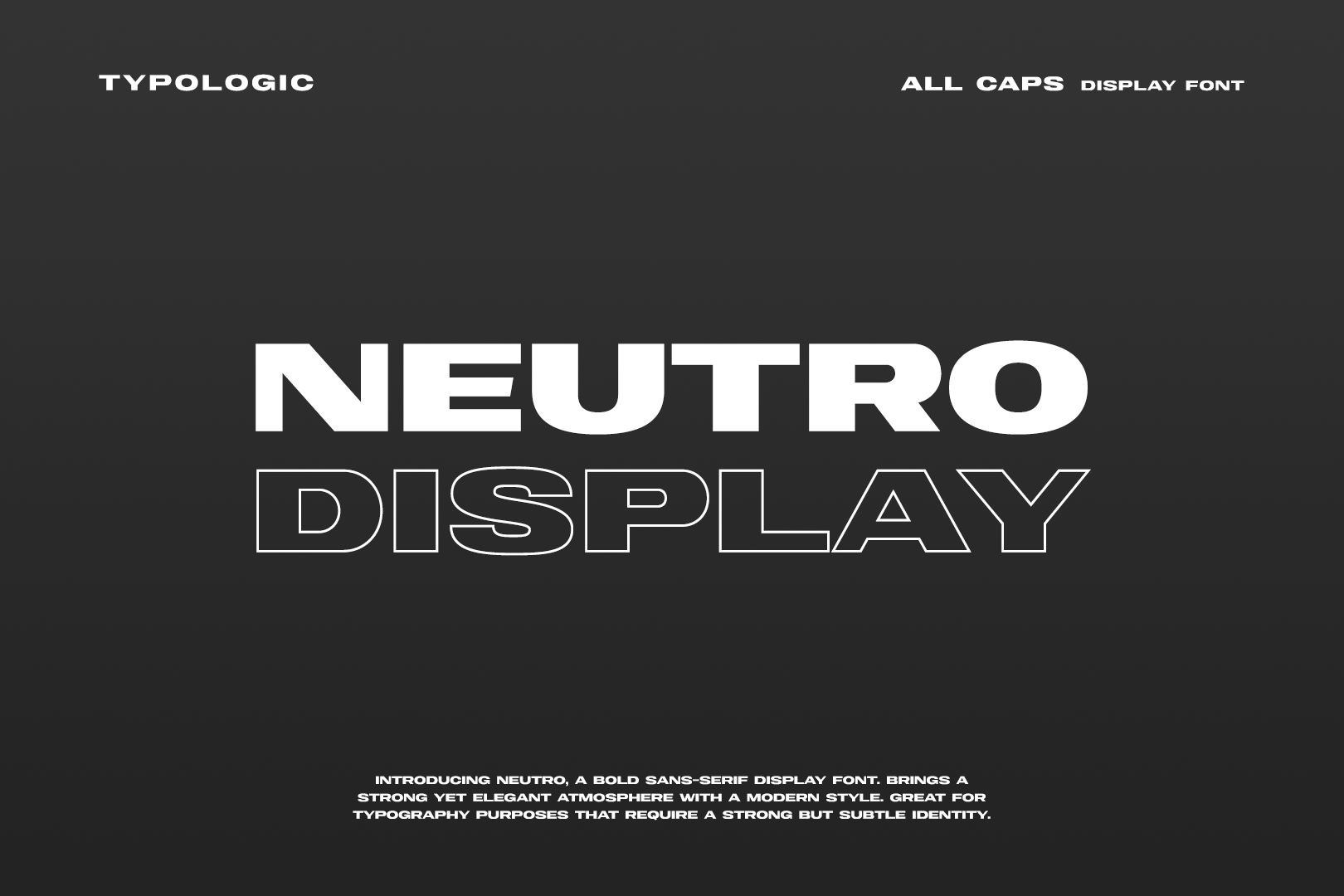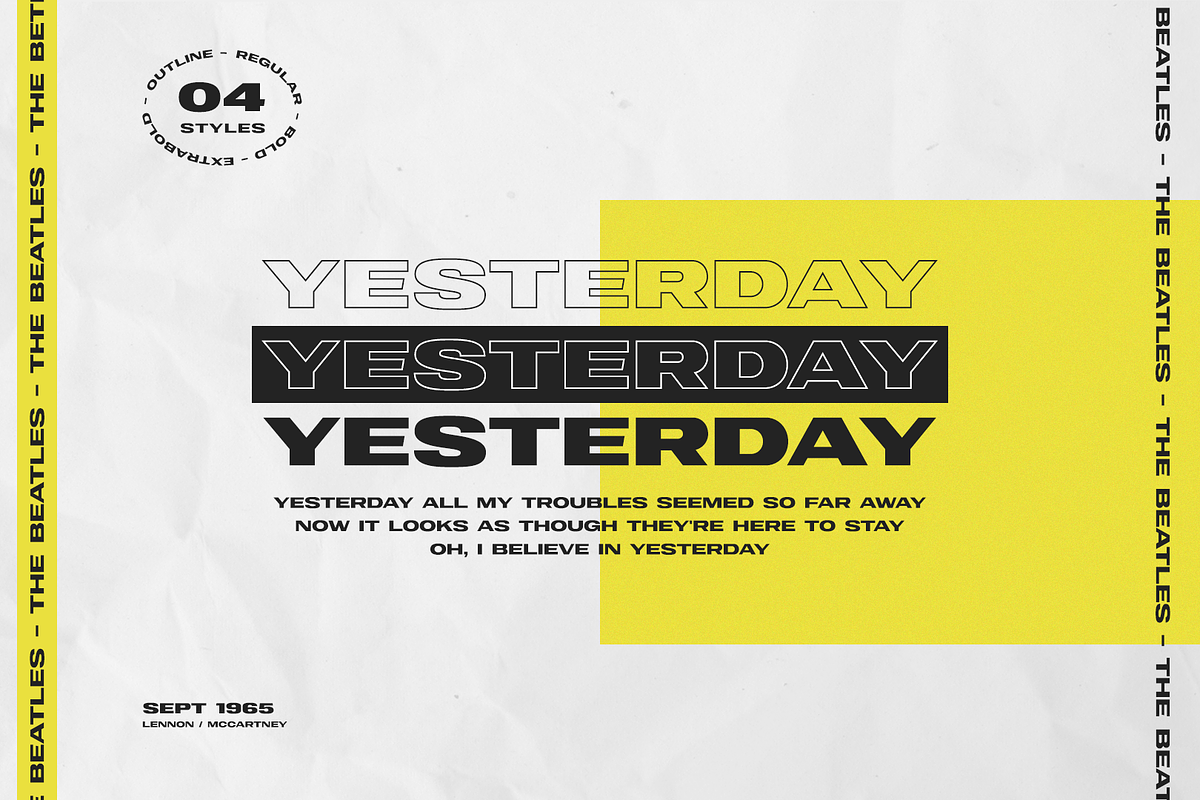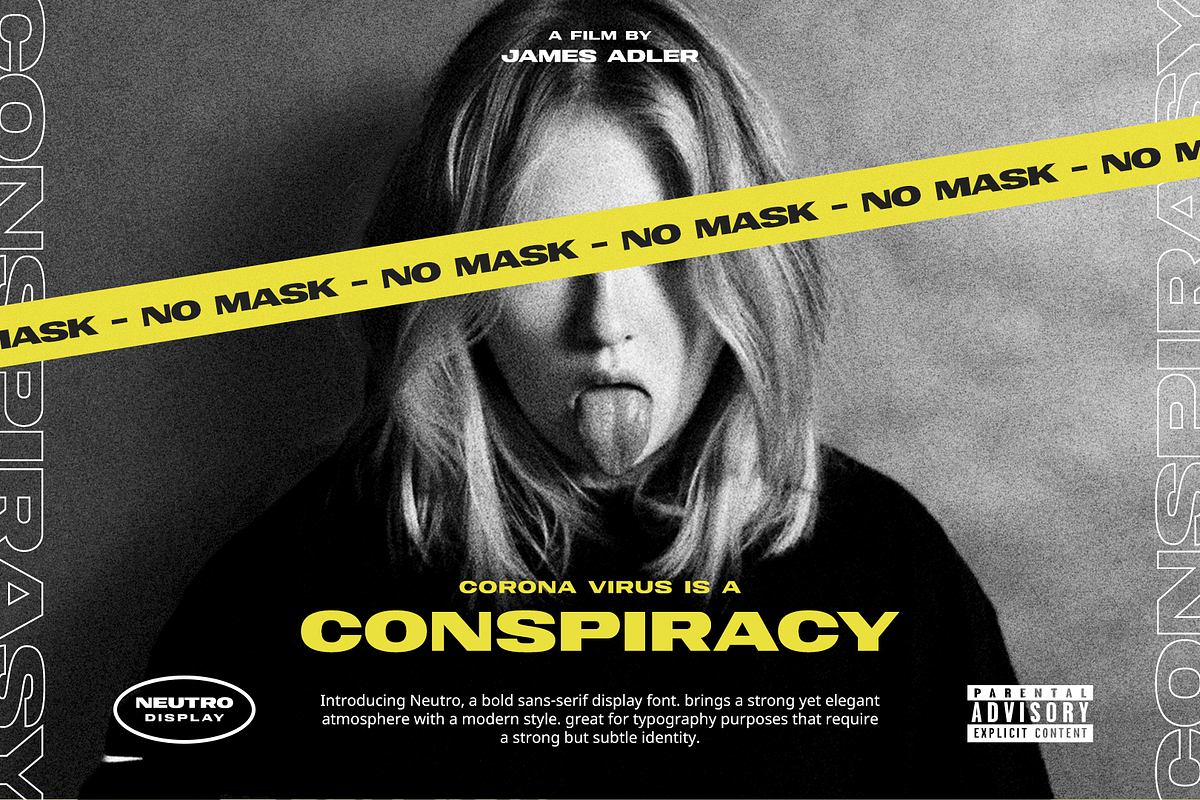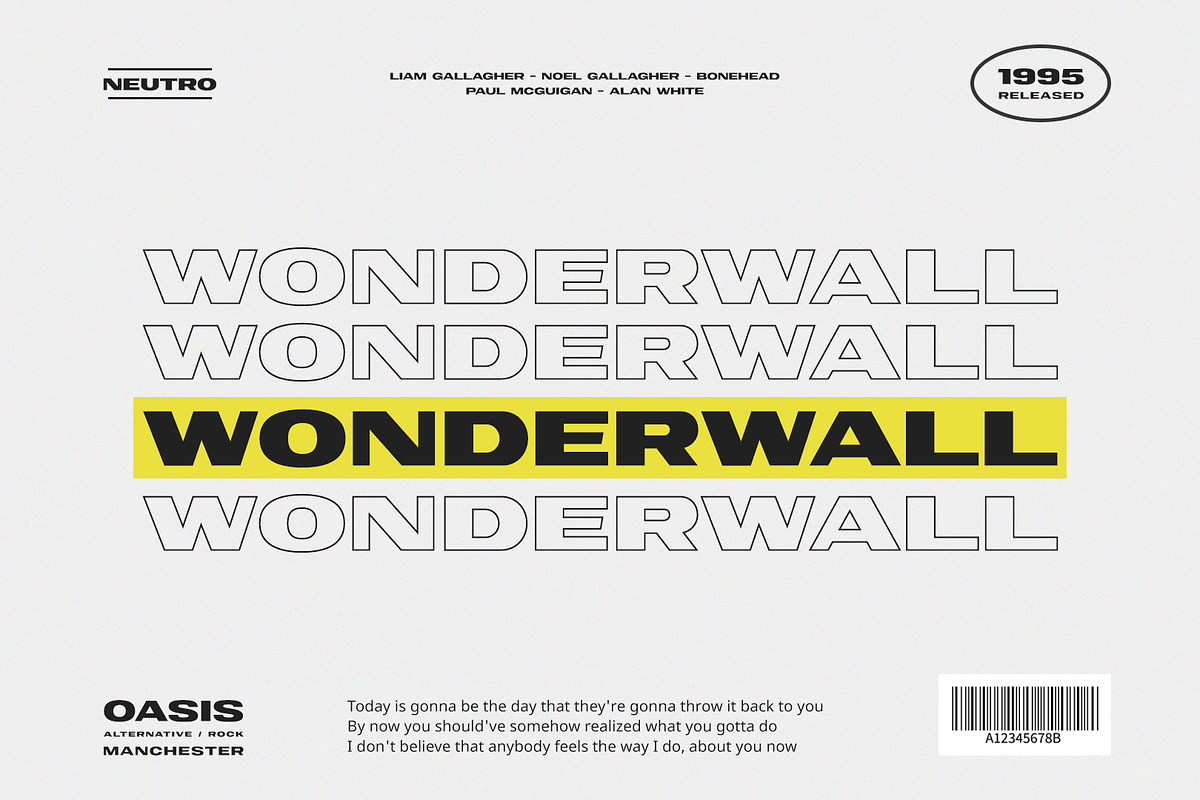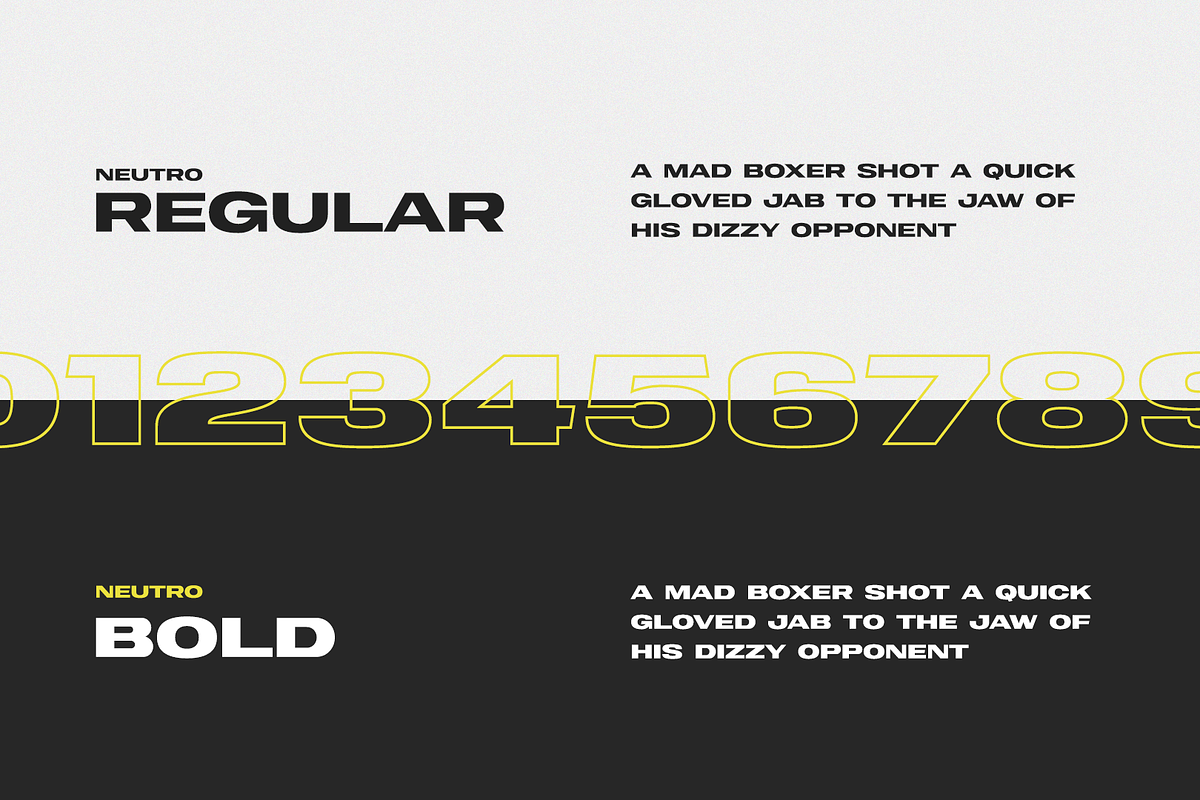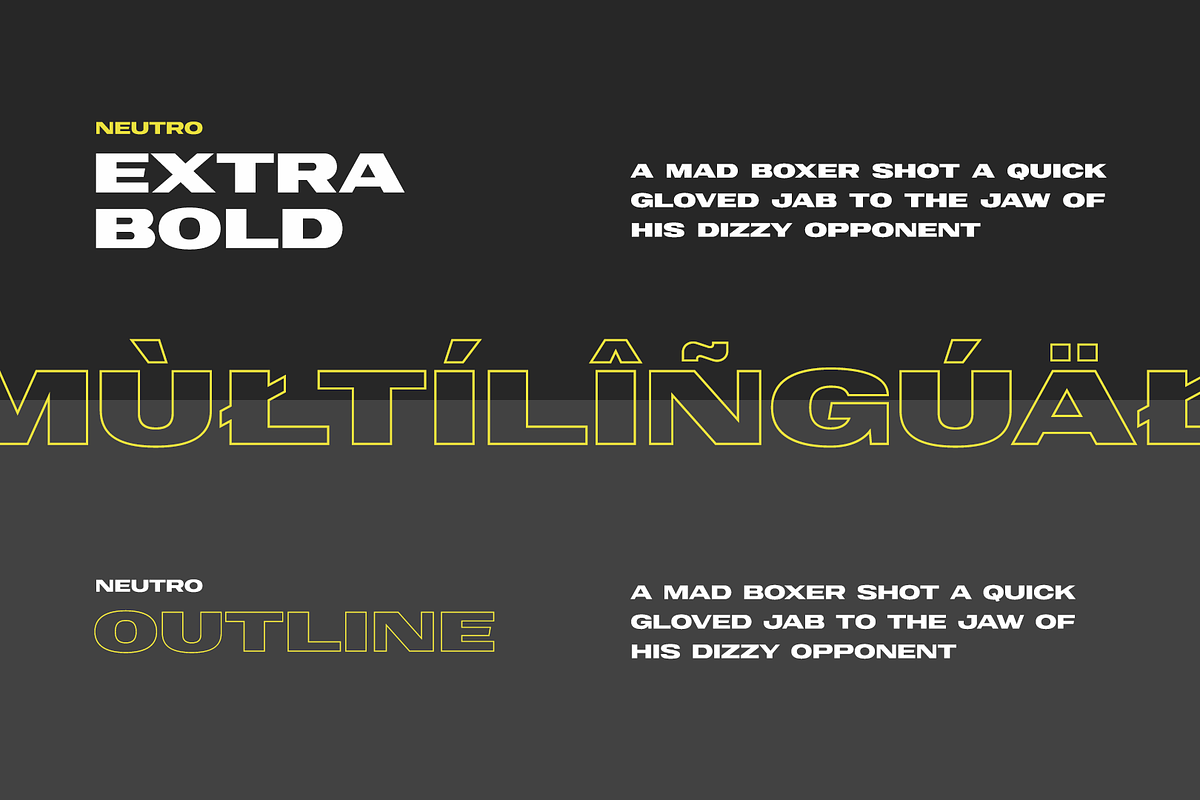
Neutro Bold Font
Browsing fonts is very similar to shopping. If you go with an idea in mind, you’ll instantly find what you need without looking far, but if it’s a spur of the moment decision, you’ll probably spend hours before you settle on something that “might do”. So when you’re looking for a display font for your bold presentations, you’re going to be incredibly pleased with what Neutro has to offer.
This all-caps font was created to be noticed, a font designed for greatness by Typologic. It brings you strong characters that draw attention by their simplicity, and although Neutro is bold by nature, it always finds space for an elegant touch and a modern display that can be used for magazine covers, posters, album art, and other typography purposes.Typologic includes 3 different weights with Neutro: regular, bold, and extra-bold, as well as an outlined version with a personal and commercial license available.